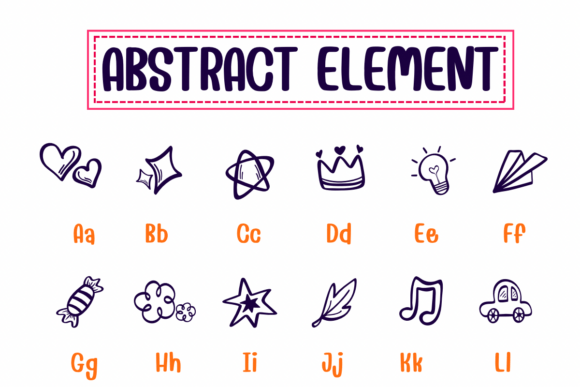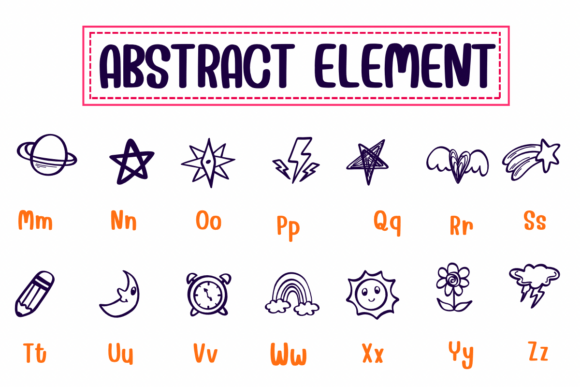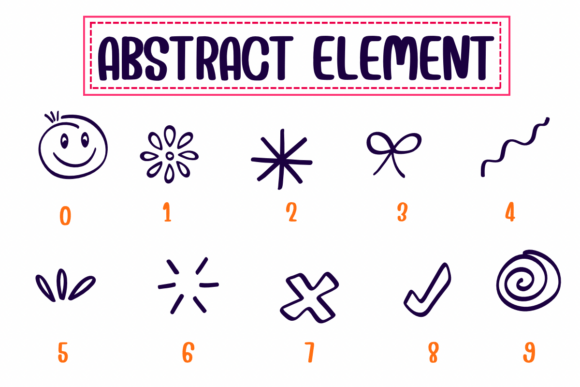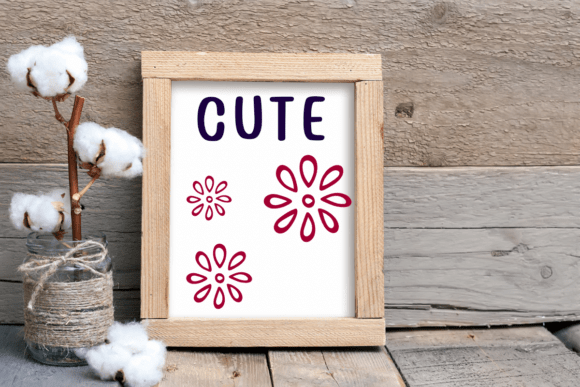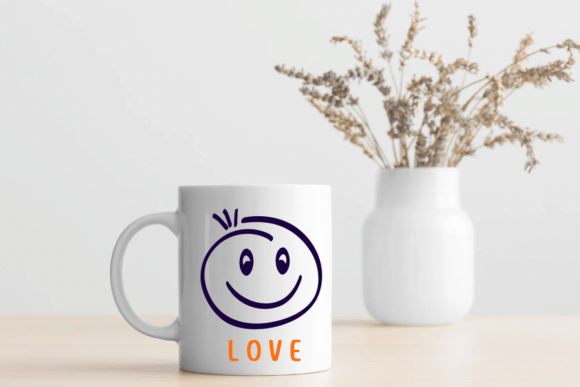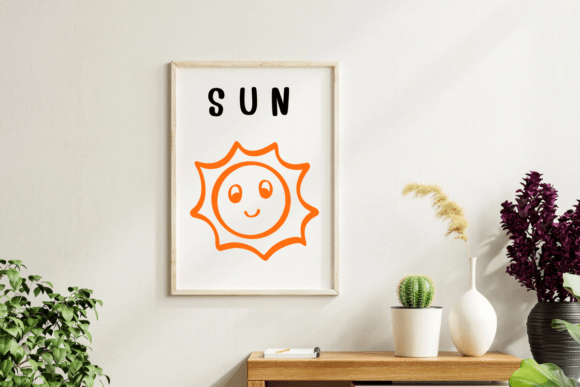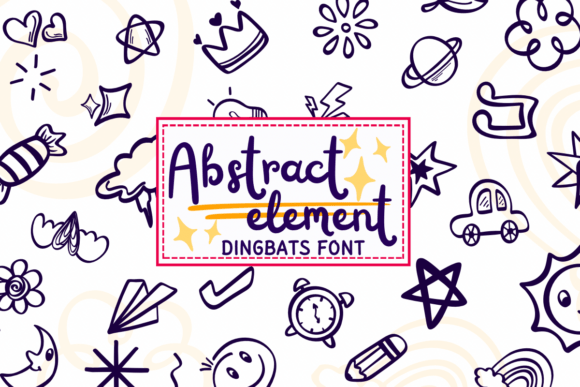
Introducing Abstract Element Font: The Cute Dingbats Font to Elevate Your Designs
Are you a designer or crafter looking for a unique and playful font to add a touch of festivity to your projects? Look no further than Abstract Element Font, a delightful dingbats font that’s sure to inspire your creativity. In this article, we’ll dive into the world of Abstract Element Font, exploring its features, uses, and benefits, as well as provide tips on how to incorporate it into your designs.
What is Abstract Element Font?
Abstract Element Font is a charming dingbats font that’s perfect for adding a touch of whimsy to your designs. Dingbats fonts, also known as symbol fonts, are a type of font that features graphical symbols, such as icons, shapes, and illustrations, rather than traditional letters and numbers. Abstract Element Font is a carefully crafted collection of cute and quirky symbols, including stars, hearts, flowers, and more.
Key Features of Abstract Element Font
• Cute and playful design: Abstract Element Font features a delightful set of illustrations that are sure to add a touch of fun and personality to your designs.
• Festive and versatile: Whether you’re working on a holiday project, a birthday card, or a simple social media graphic, Abstract Element Font is the perfect choice.
• Easily scalable: This font is designed to be highly legible, even at small sizes, making it perfect for a wide range of applications.
Uses for Abstract Element Font
Abstract Element Font is a versatile font that can be used in a variety of design projects, including:
• Holiday cards and invitations: Add a touch of festivity to your holiday designs with Abstract Element Font’s cute and playful illustrations.
• Social media graphics: Use Abstract Element Font to create eye-catching social media graphics, such as Instagram posts, Facebook covers, and more.
• Planners and journals: Add a personal touch to your planners and journals with Abstract Element Font’s delightful illustrations.
• Crafting projects: Use Abstract Element Font to create custom signs, banners, and other crafting projects.
Tips for Using Abstract Element Font
Here are a few tips for getting the most out of Abstract Element Font:
• Experiment with different colors and textures: Abstract Element Font looks great in a variety of colors and textures, so don’t be afraid to get creative!
• Mix and match with other fonts: Combine Abstract Element Font with other fonts to create a unique and visually appealing design.
• Use it sparingly: Abstract Element Font is a bold and playful font, so use it sparingly to avoid overwhelming your design.
Abstract Element Font is a cute dingbats font. Add it to your festive ideas and enjoy the results!